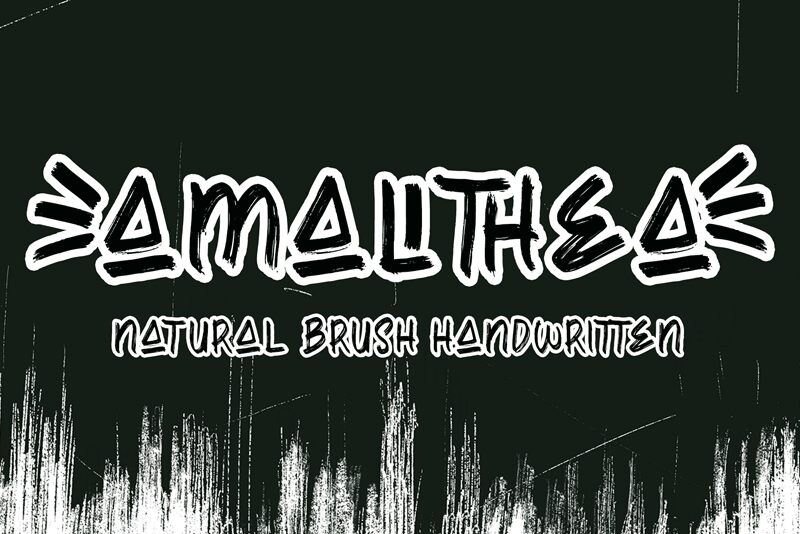
Amallthea
Amallthea, crafted by AEN Creative Studio, is a captivating dry brush font that exudes effortless charm and creativity. With its distinctive textured strokes and organic feel, this font is perfect for projects seeking a touch of authenticity and artistic flair. From fashion branding to handmade product packaging, Amallthea lends itself beautifully to logo designs, social media graphics, and eye-catching headlines. Its semi-bold typeface adds a contemporary edge to invitations, posters, and editorial layouts. Embrace the unique personality of Amallthea and elevate your designs with its expressive brushstrokes.